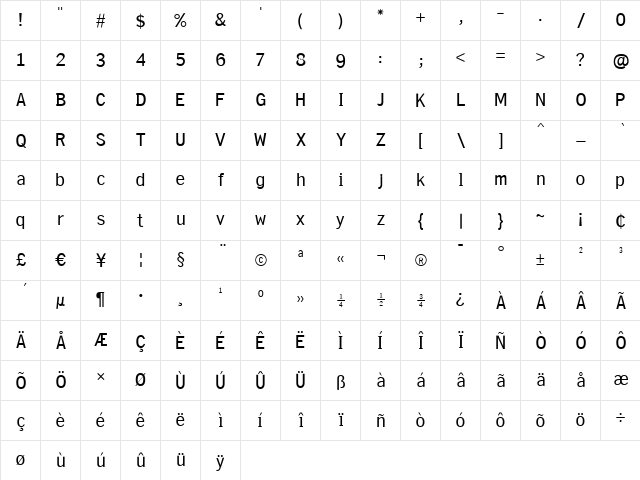
SonGothic Book
Design Context for SonGothic Typeface
SonGothic has the quiet confidence of well-executed sans-serif typography: versatile, unobtrusive, and dependable at any size.
Font Pairing: Works well alongside a characterful serif or display font that can carry the expressive load while SonGothic handles the functional copy.
Pro Tip: Use SonGothic for UI labels, navigation, and short-form body copy where clean legibility is the priority.